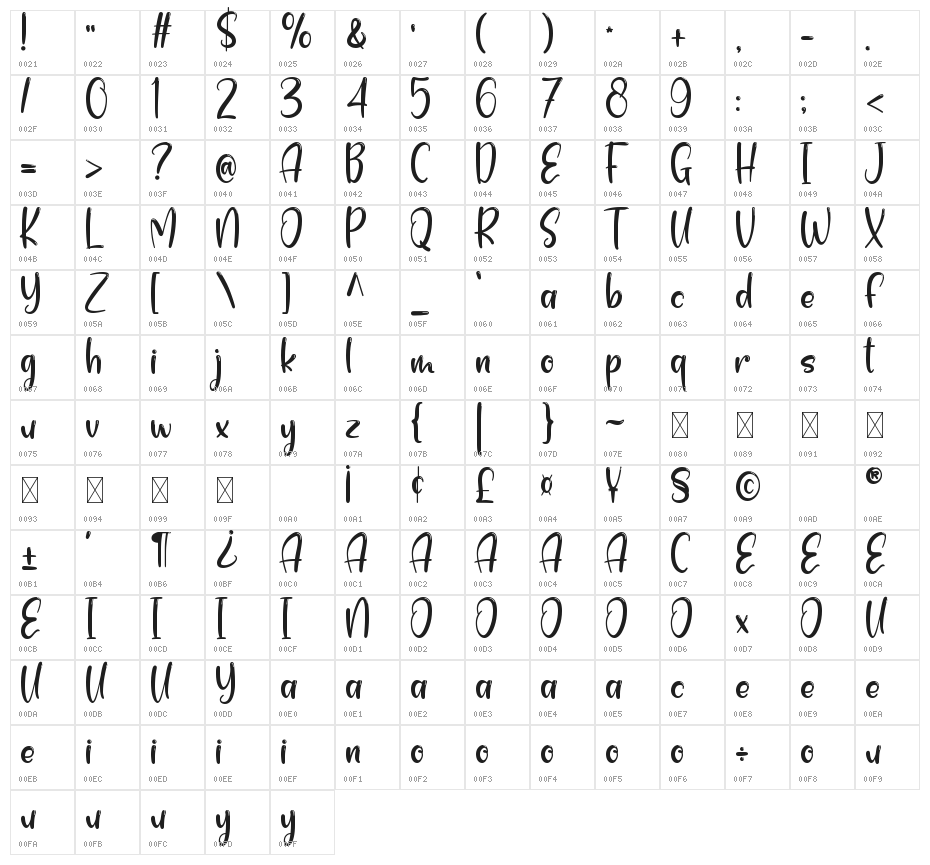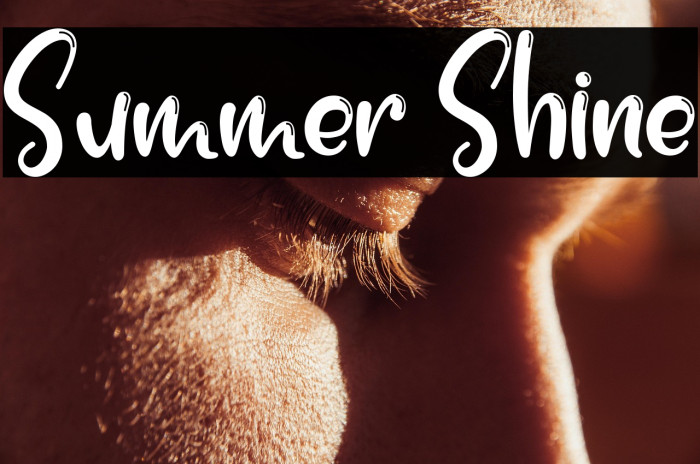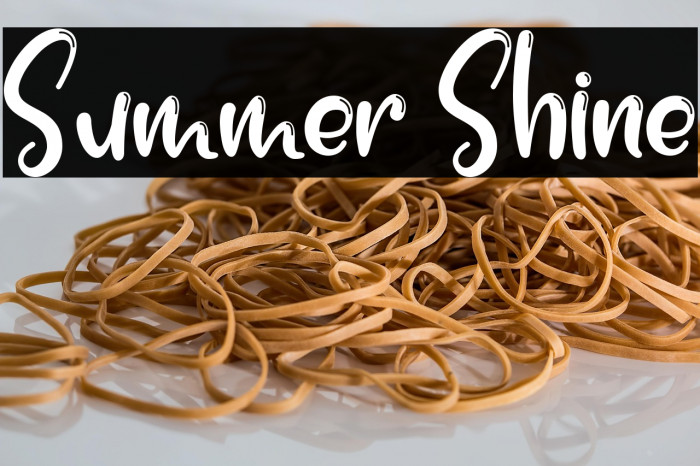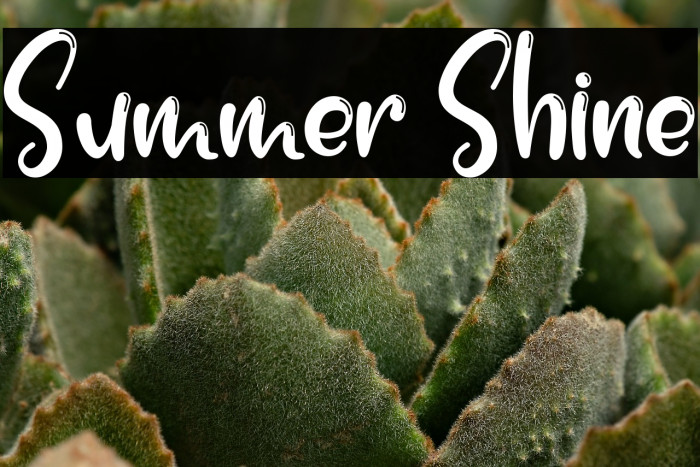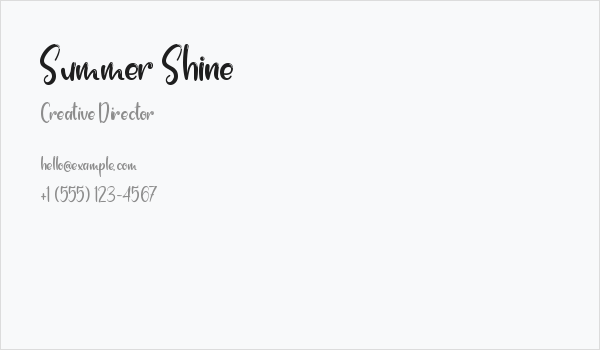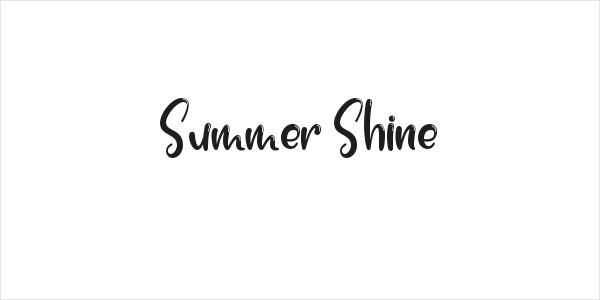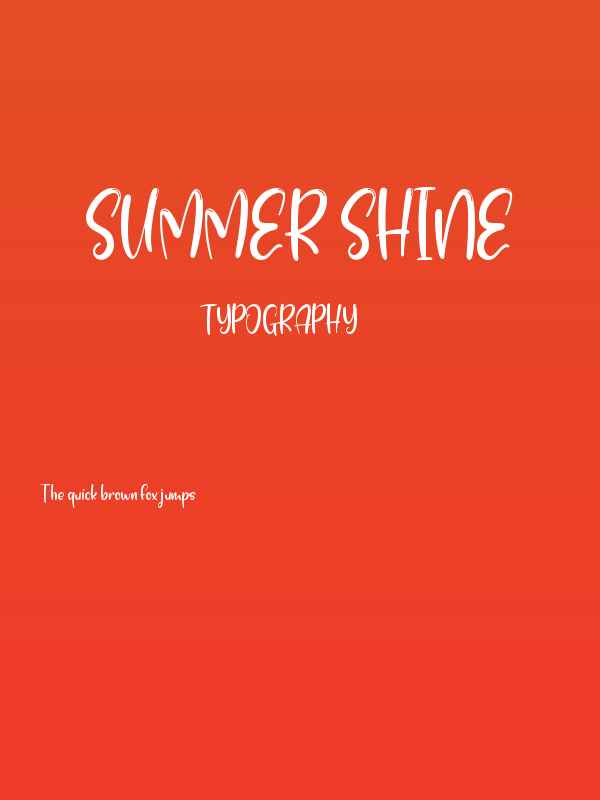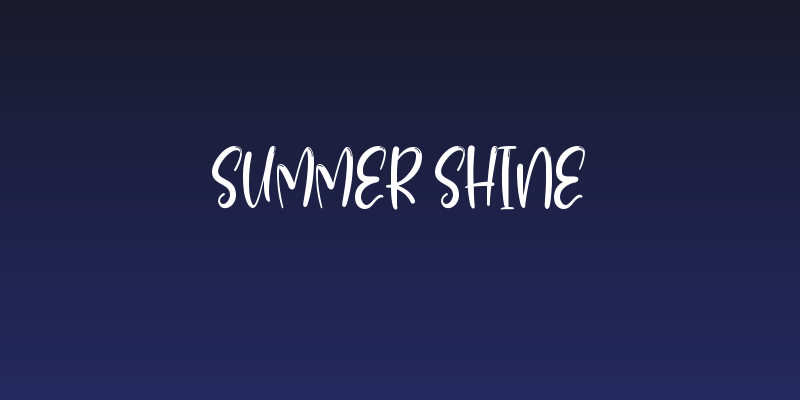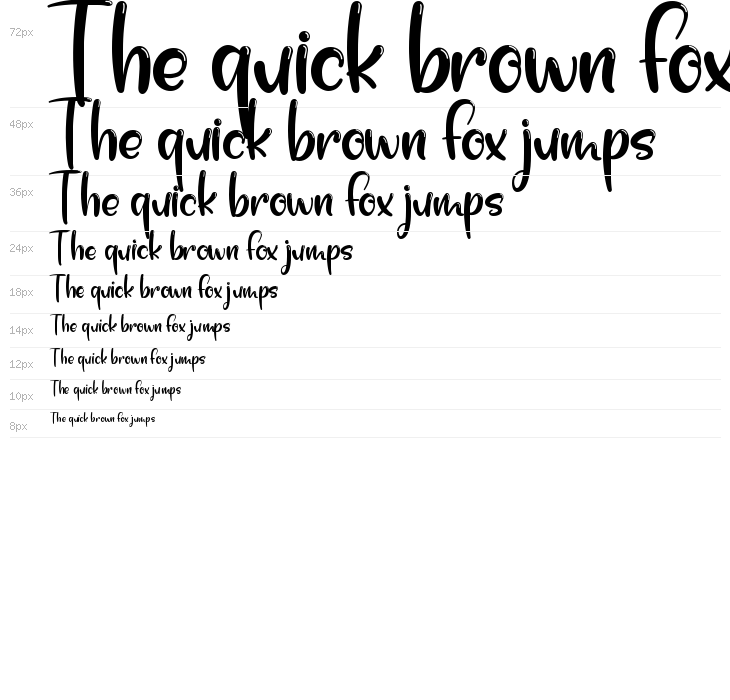
Summer Shine Font
Summer Shine Description
A playful and energetic handwritten font with a casual and friendly appearance, featuring smooth curves and a lively flow.
| Overall Style | Casual and friendly |
| Use Case | Headlines, Invitations, Greeting cards |
| Proposed Projects | Greeting cards, invitations, playful branding. |